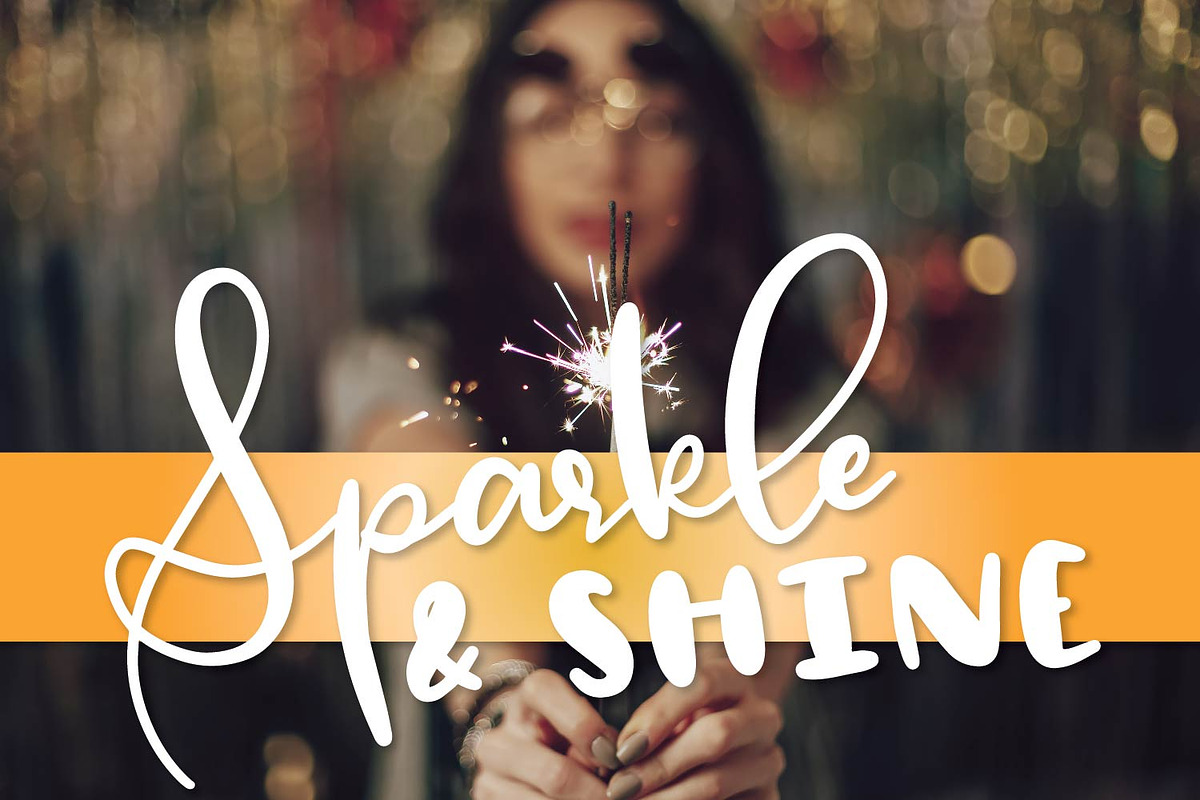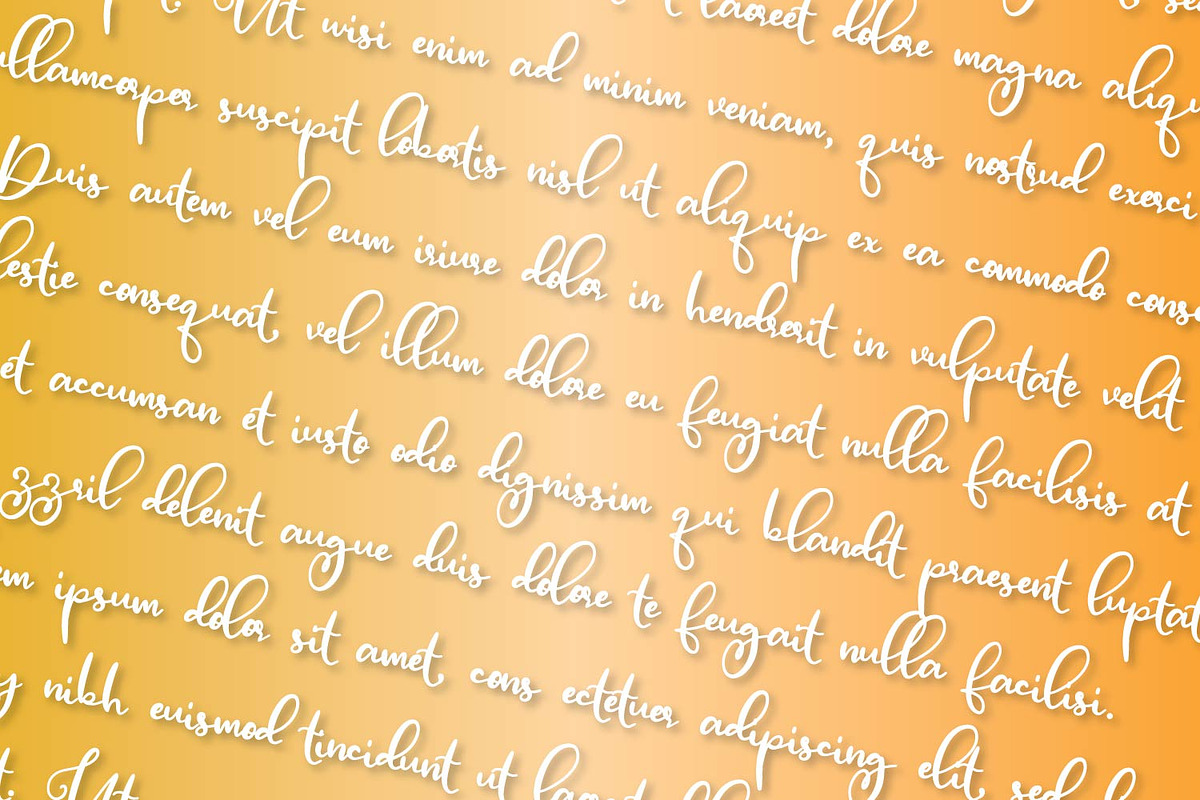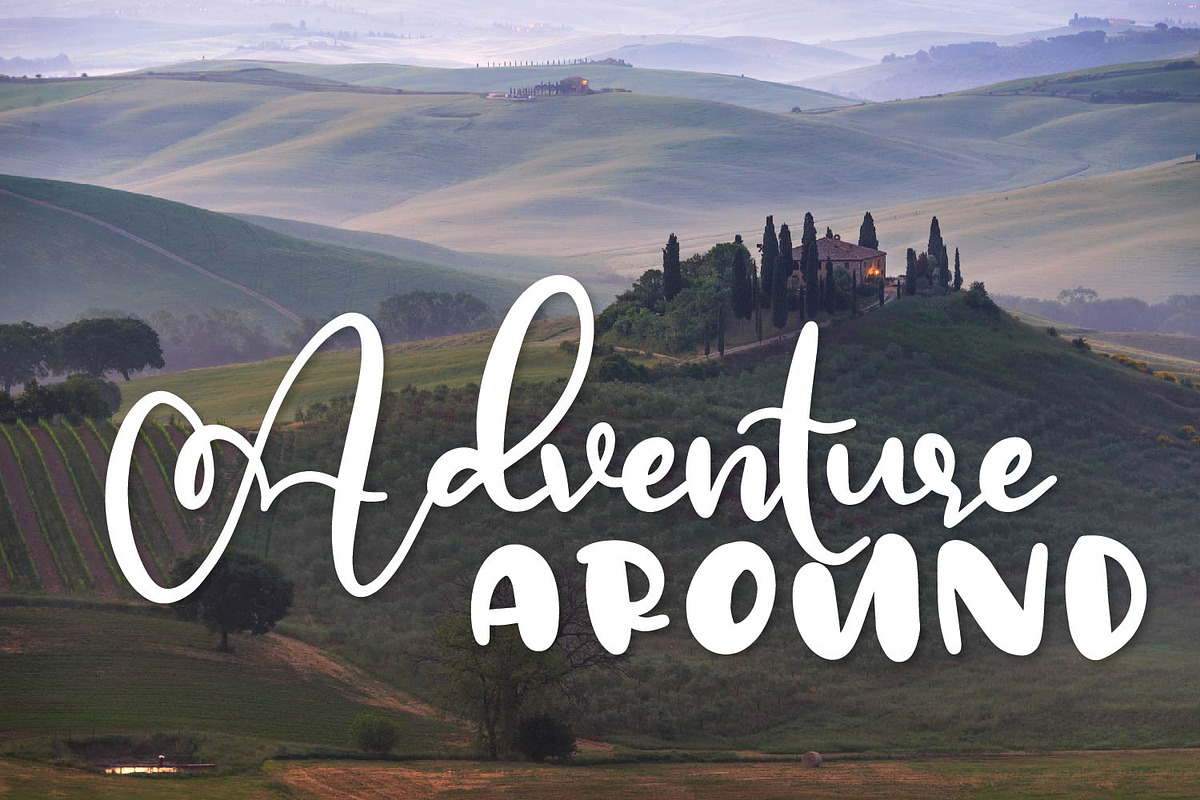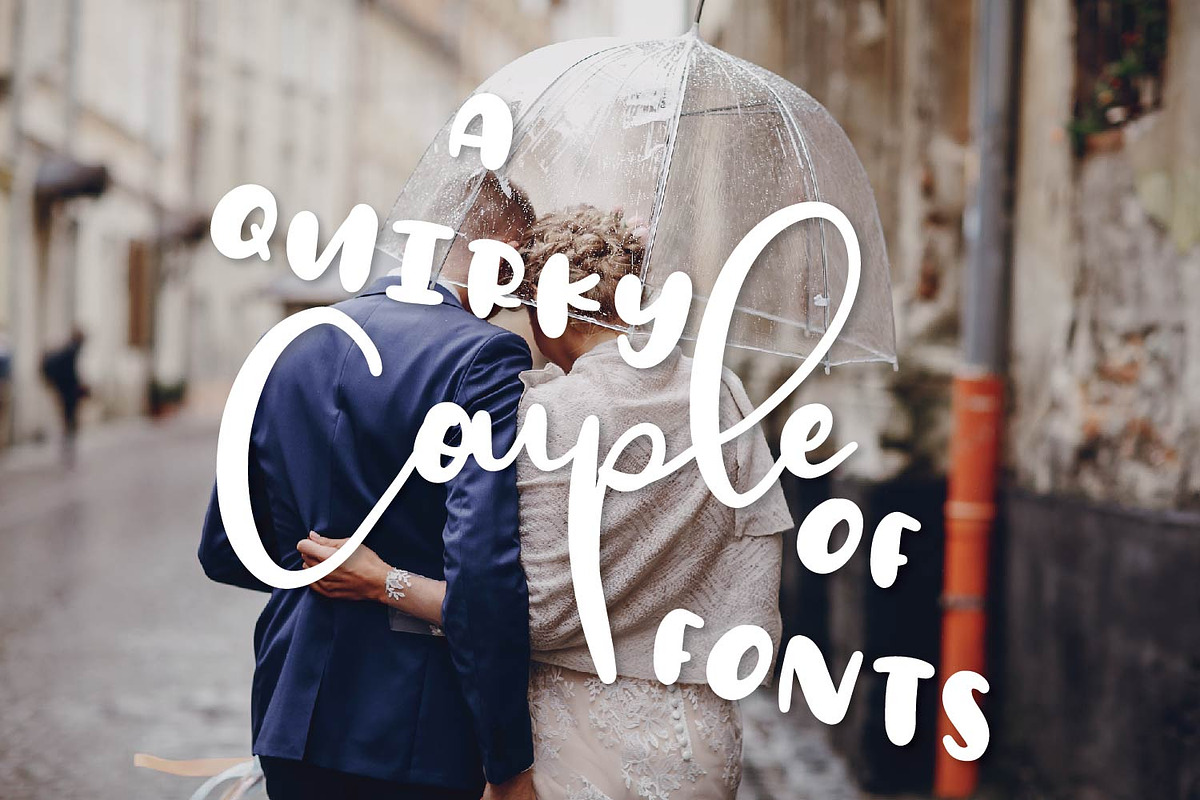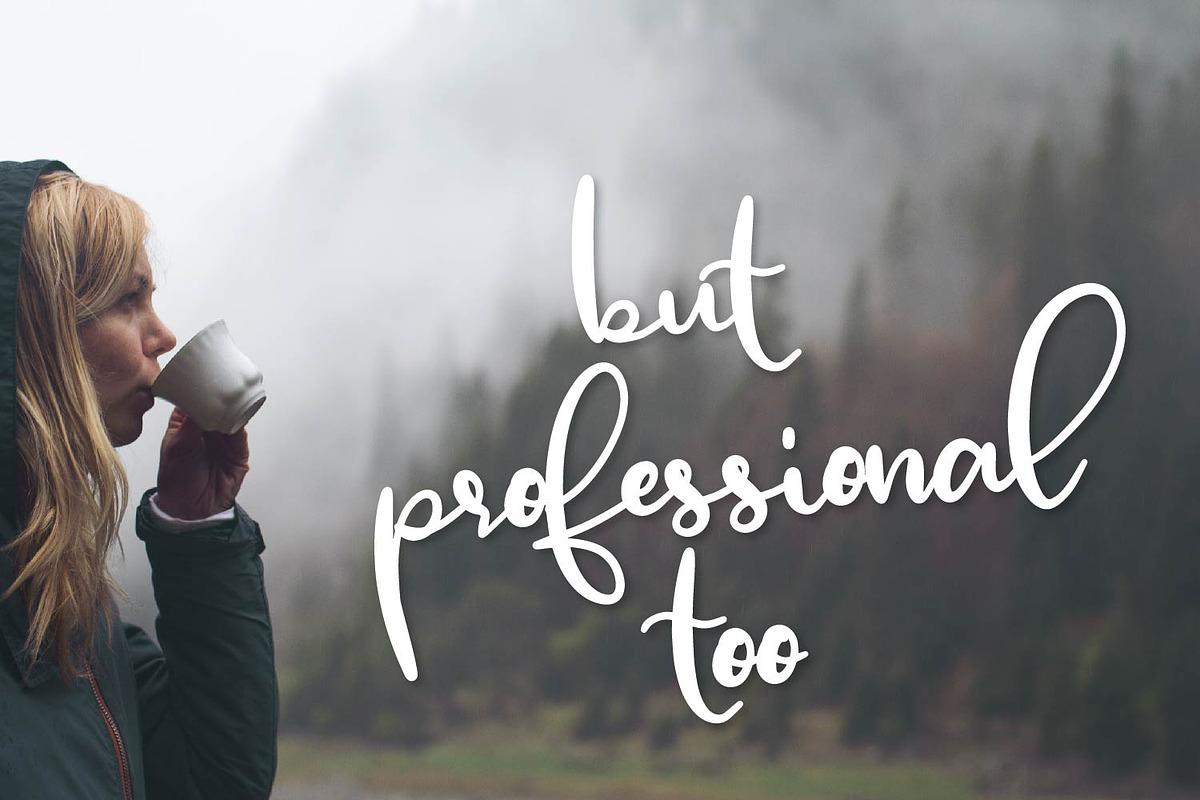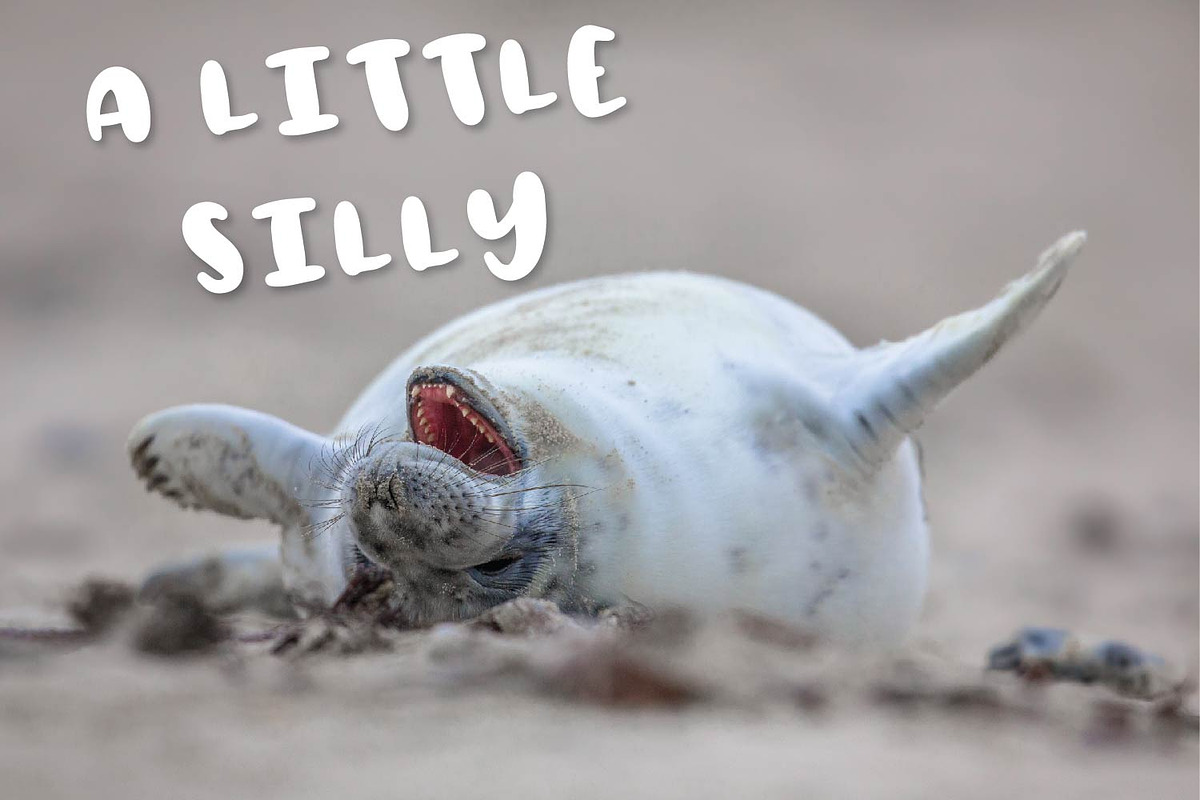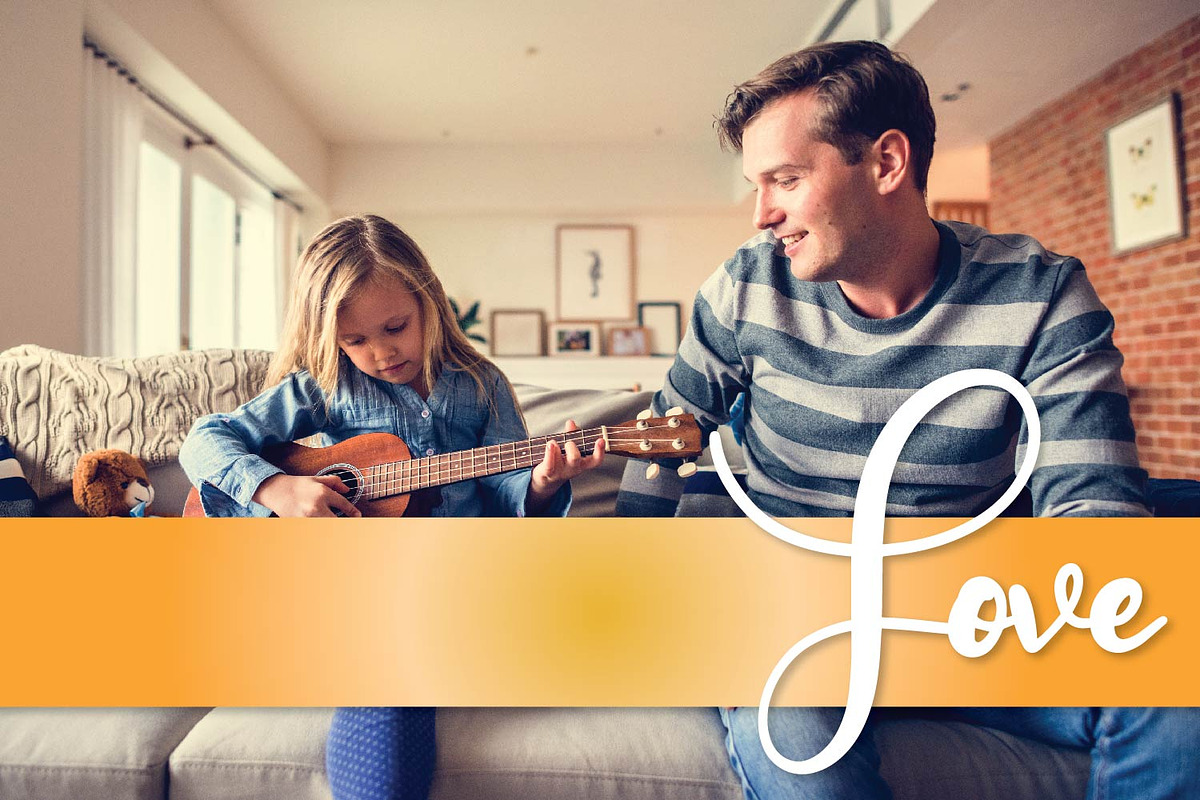
Blanely - A Font Pair Duo
Blanely A Font Pair Duo by CraftyLittleNodes is a font selected for branding, posters, packaging, typography.
Why Blanely - A Font Pair Duo is worth a look
Blanely - A Font Pair Duo by CraftyLittleNodes fits naturally into Branding, posters, packaging, typography.